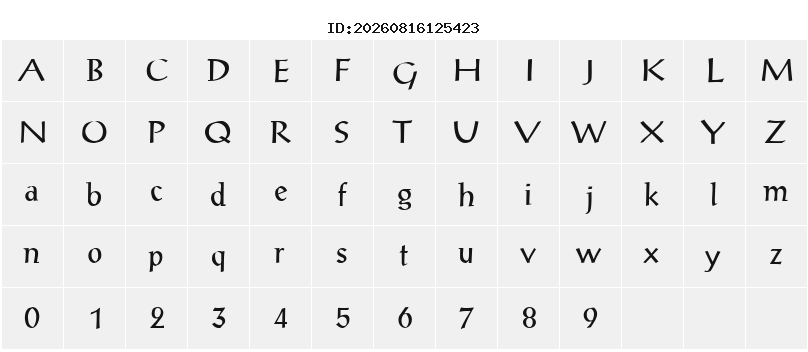
• Font Name: St. Maarten
• Font Style: regular
• Full Font Name: St. Maarten regular
About St. Maarten.ttf
St. Maarten.ttf is a modern, elegant sans-serif font designed for ultimate readability and visual harmony. Perfect for branding, headlines, web design, and print materials.